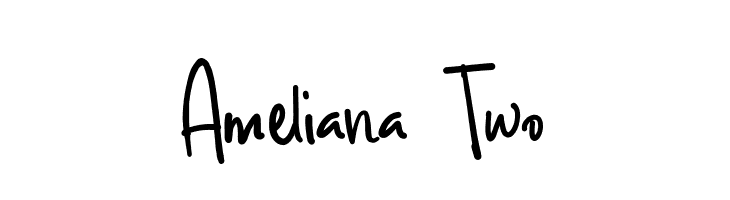
An intricate, ornamental font with gothic and tribal influences.
A bold, hand-painted style font with expressive, brush-like strokes.
A bold and intricate blackletter font with a medieval aesthetic.
A bold, gothic-style blackletter font with sharp, angular lines.
A graceful, handwritten script font with elegant, flowing strokes.
An ornate and decorative font with intricate swirls and flourishes.
A bold, gothic font with sharp, pointed edges and a medieval aesthetic.
A bold, dynamic script font with flowing, cursive strokes.
A bold, brush-style font with dynamic, irregular strokes.
A dynamic and expressive script font with fluid, energetic strokes.
A bold, expressive, hand-drawn font with dynamic strokes.
A bold, angular blackletter-inspired font with a modern twist.
A decorative and ornamental typeface with intricate flourishes.
A bold, geometric sans-serif font with a unique black highlight effect.
A lively and dynamic handwritten font with playful curves and irregular strokes.
A bold, playful, and decorative font with a hand-drawn style.
A tall, narrow font with thin strokes and a modern, sophisticated style.
A bold and dynamic script font with high contrast and sweeping strokes.
A bold, Gothic-inspired font with sharp, angular lines and intricate detailing.
A bold, decorative Blackletter font with intricate details and gothic flair.
A playful, handwritten font with uneven strokes and a casual style.
A chaotic, vine-like decorative font with intense detailing.
A bold, rugged font with a distressed, vintage appearance.
A bold, dynamic script font with fluid, connected letterforms.
A bold, hand-drawn font with a playful and dynamic style.
A bold, ornate blackletter font with a medieval aesthetic.
The image contains decorative ornaments, not a valid font.
A dynamic and elegant script font with a flowing, cursive style.
A dynamic, expressive handwritten font with fluid strokes and elegant curves.
A flowing, elegant cursive font with smooth, connected letters.
A dynamic, cursive font with fluid strokes and elegant curves.
A bold, expressive handwritten font with thick, uneven strokes.
An elegant script font with flowing, ornate letters and medium contrast.
A bold, high-contrast serif font with decorative elements and a dramatic style.
A bold, brush-style font with a dynamic and expressive hand-drawn look.